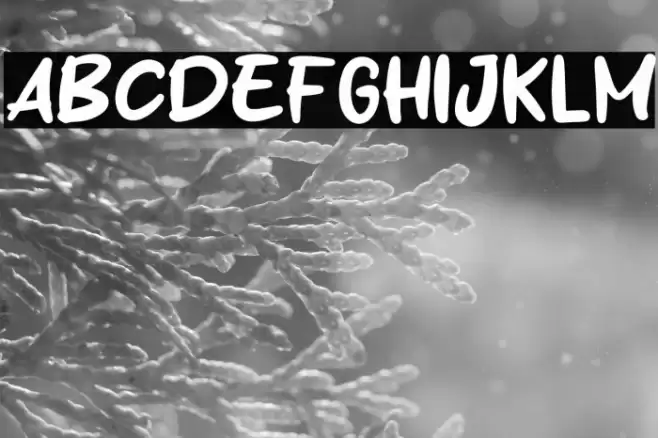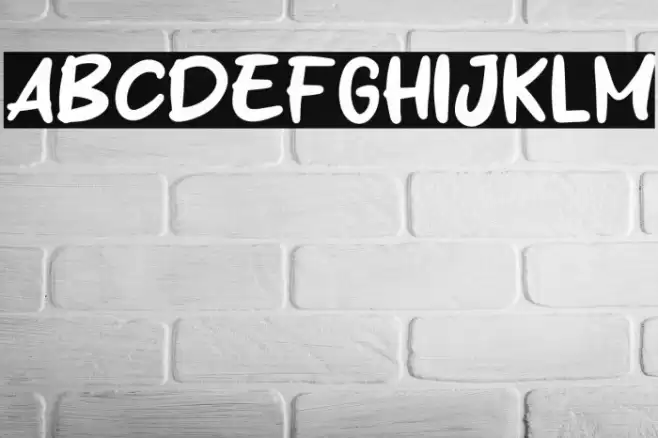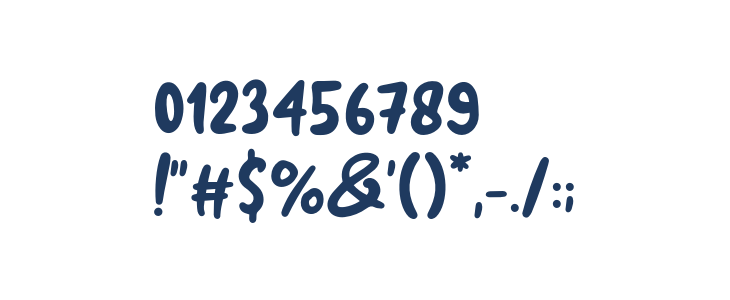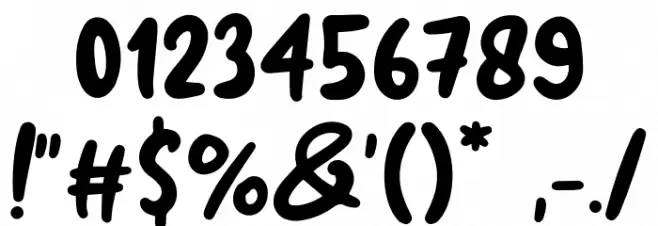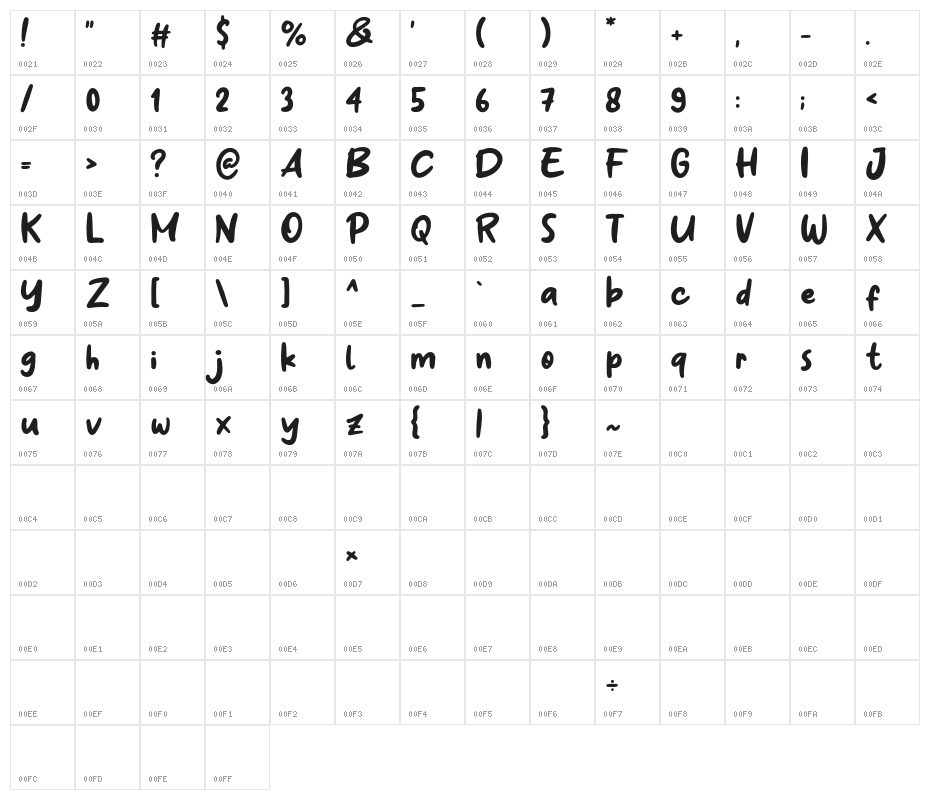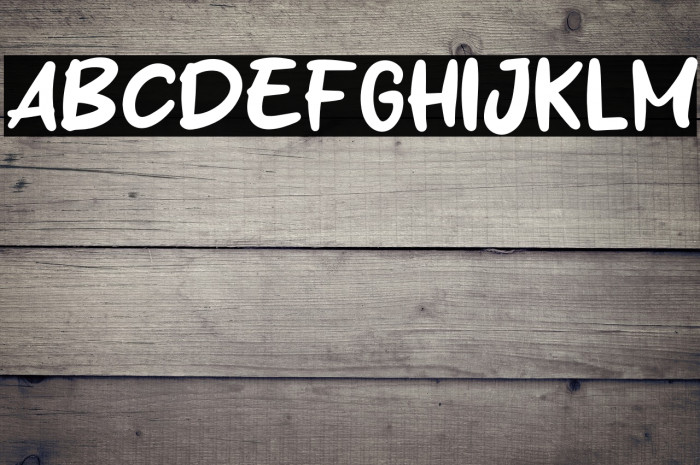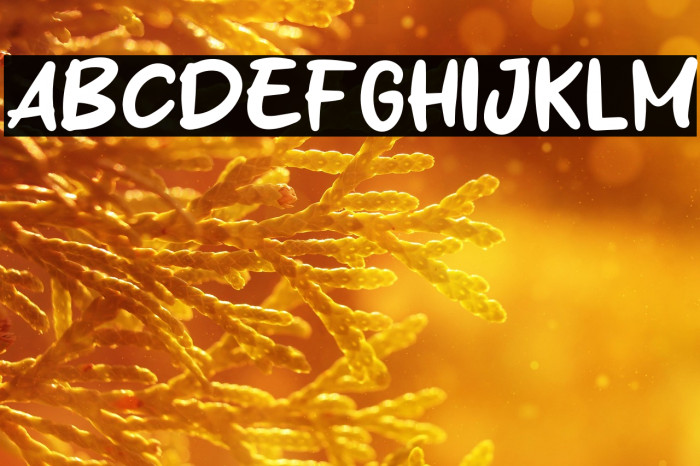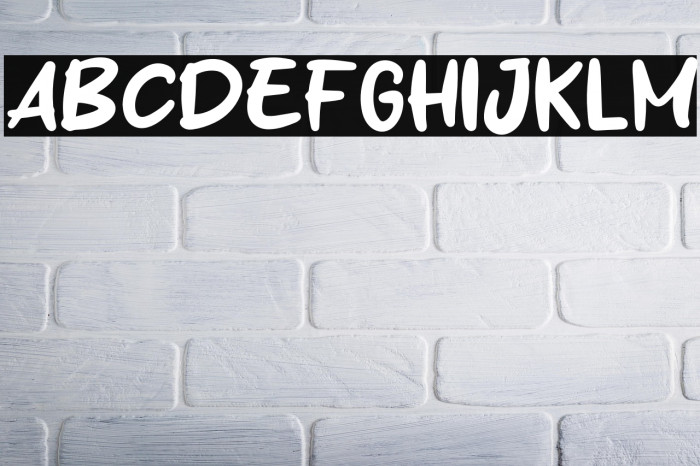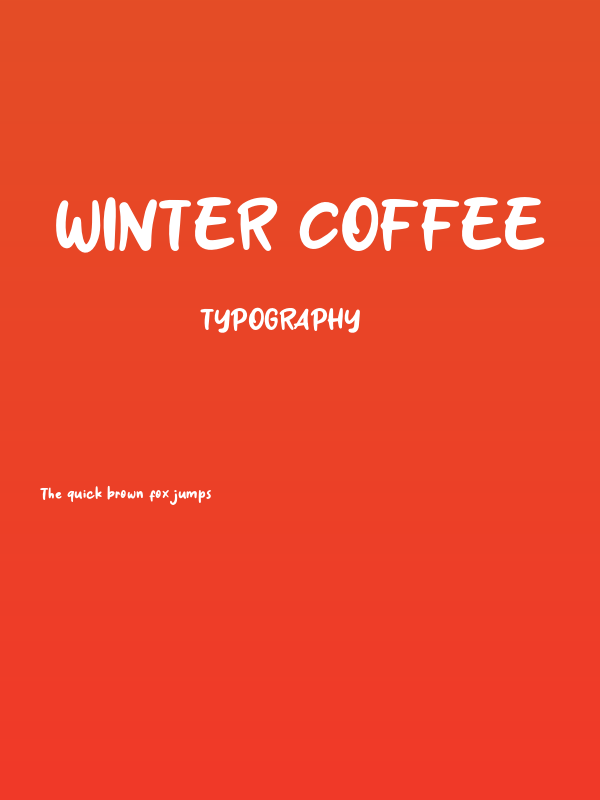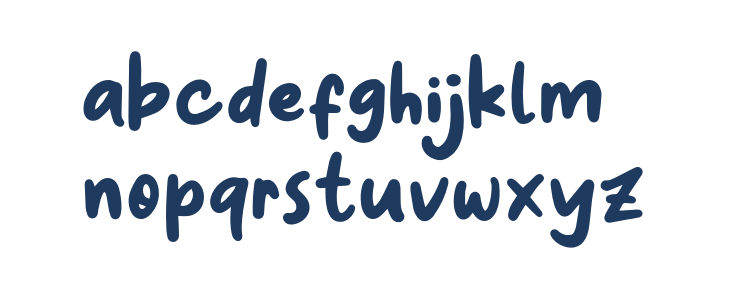
Winter Coffee Font
This font exudes a playful and casual vibe with its handwritten style. The letters are bold and rounded, giving a friendly and approachable appearance. Each character has a slightly uneven baseline, enhancing the handwritten feel. The strokes are consistent in thickness, providing a uniform look across all characters. The font includes a full set of uppercase and lowercase letters, numbers, and a variety of special characters. Its informal style makes it perfect for projects that aim to convey warmth and friendliness.
A playful, bold handwritten font with a casual and friendly vibe from Uncategorized fonts.
- Font: Winter Coffee
- Proposed Projects: Ideal for greeting cards, children's books, playful branding, and social media graphics.
- Overall Style: Casual
- Use Case: Logos, Headlines, Informal Invitations